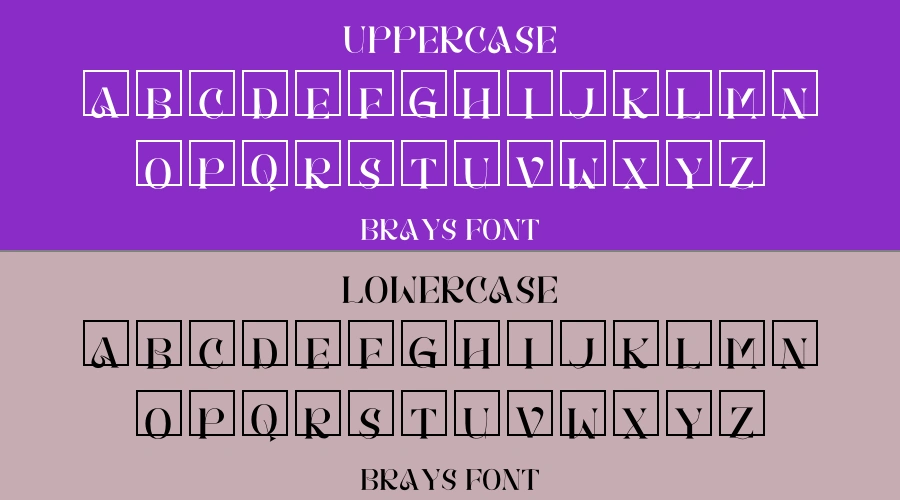
About Brays Font
Brays Font stands out for its distinctive combination of organic curves and consistency. Ideal for legal documents, it provides the clarity and market confidence that professional projects demand. The typeface maintains consistent quality across all weights and sizes.
Key features include refined calligraphic strokes and practical proportional figures, enhancing typographic expression. In ceremonial texts applications, Brays Font demonstrates exceptional versatility. The joint construction and emotional resonance contribute to its distinctive character and professional appeal.